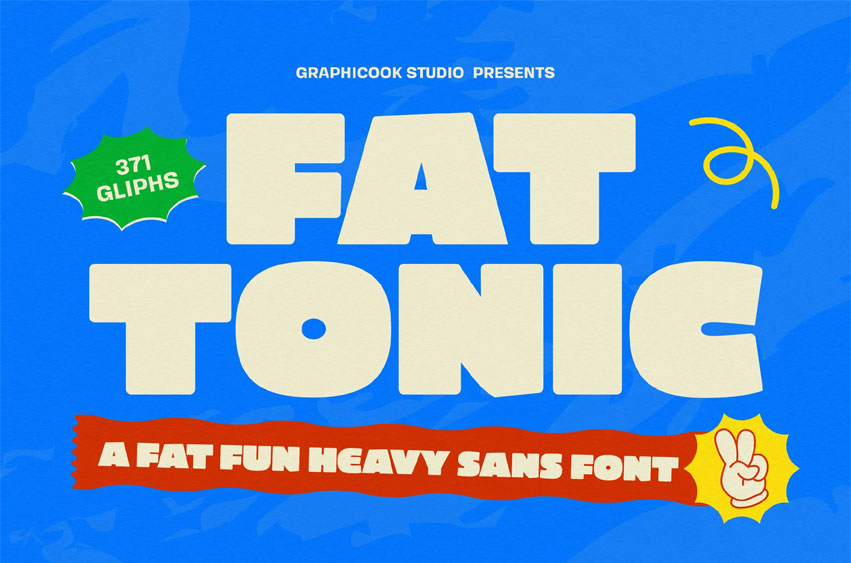
Fattonic Font
Fattonic Font is an experimental font with thick, wide letterforms and a retro flair. It’s great for logos, headlines, or designs with pop art and nostalgic aesthetics.
Fattonic is perfect for headlines, logotypes, magazines, packaging, quotes, movies, games, cover albums, book covers, and flyers, It’s a perfect solution for creating eye-catching designs that stand out in any context.